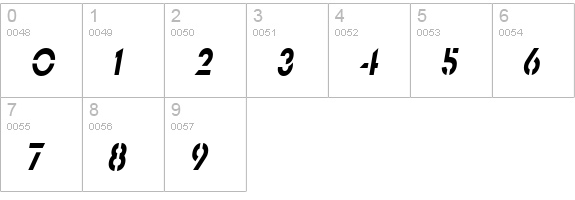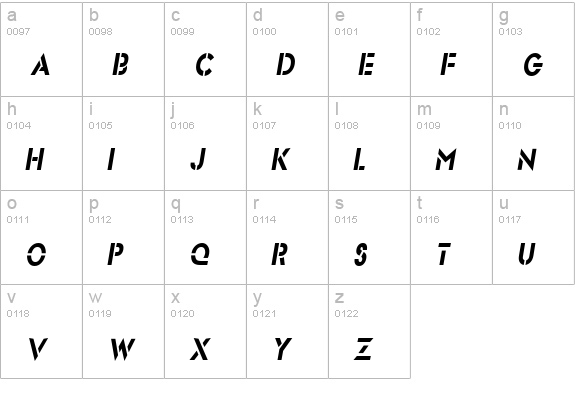
Stencil SansCondensed Italic Font Details
Stencil SansCondensed Italic is a distinctive, italic variant in the Stencil typeface family \xE2\x80\x94 well suited to design and typography projects.
Introducing Stencil SansCondensed Italic font, a sleek and modern typeface that exudes sophistication and elegance. The italic design adds a touch of flair and style, making it perfect for projects that require a sense of refinement. This font is perfect for a variety of design projects, from branding to editorial layouts, thanks to its clean lines and contemporary feel. The condensed style allows for efficient use of space without sacrificing readability, making it an ideal choice for both print and digital applications. Best of all, Stencil SansCondensed Italic font is available for free download at FontsMarket.com. So you can easily access this versatile typeface and elevate your designs without breaking the bank. Don't miss out on this opportunity to add a touch of sophistication to your projects with Stencil SansCondensed Italic font.